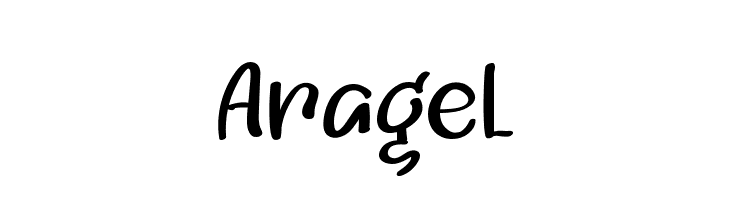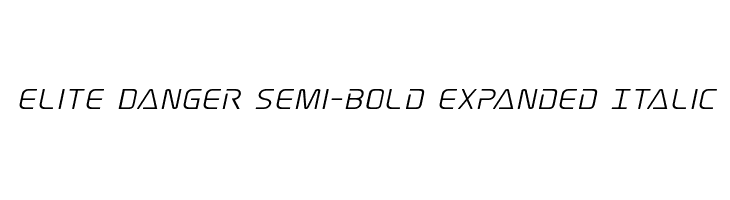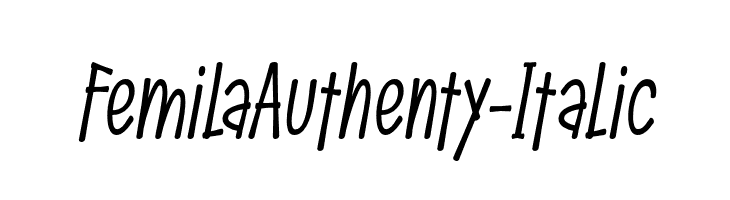
A bold, decorative font with whimsical swirls and flourishes.
A clean, geometric font with consistent stroke widths and a modern aesthetic.
A dynamic, expressive handwritten font with fluid, cursive letterforms.
A rugged, distressed font with a handcrafted, textured appearance.
Playful, illustrated dingbat font with quirky, themed icons.
A bold, geometric font with a futuristic and digital aesthetic.
A playful, hand-drawn font with a primitive, cave-like aesthetic.
A bold, italicized font with sharp angles and a dynamic, futuristic style.
A bold, geometric outline font with a futuristic and edgy style.
A fluid and elegant script font with smooth, flowing lines and cursive letterforms.